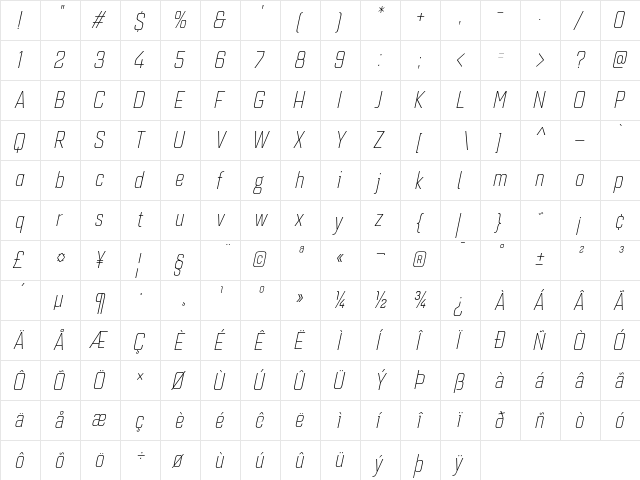
Quarca Cond Light Italic Font Preview
Design Context for Quarca Typeface
Quarca offers clean, dependable letterforms without strong stylistic allegiance, making it a practical choice for designers who need flexibility. Its italic angle brings a sense of urgency and motion to the letterforms. The delicate stroke weight brings airiness and refinement to layouts. The condensed width makes it efficient for tight spaces without sacrificing legibility.
Pro Tip: Use Quarca for emphasis, pull quotes, and subheadings where its slanted energy can add rhythm to the layout.